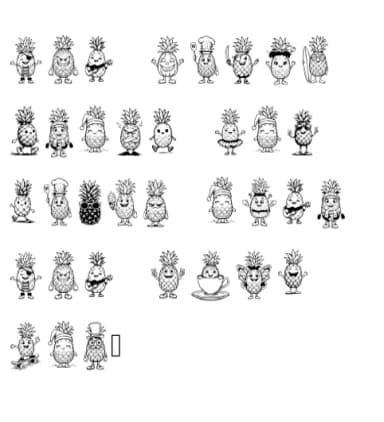
Pineapple Joy by Happy Bamboo is a hand-drawn dingbat font that injects tropical character into any layout. The collection features 26 individual pineapple illustrations, each with distinct personality. Some lean toward playful cartoon expressions while others show more botanical detail, giving you flexibility depending on the mood you're after.
These icons work particularly well for tropical-themed wedding invitation suites where you need subtle visual interest without overwhelming the text. They're equally at home on Etsy product labels for handmade goods, DIY craft packaging and signage, and social media graphics that need instant warmth. Layer them alongside clean typography for visual breathing room, or use them as standalone embellishments to break up longer passages of body text. The hand-drawn style keeps everything feeling approachable rather than overly designed, which matters when you want authentic charm to come through.
Think about beach resort menus, boutique packaging for organic or artisanal products, coloring books with a tropical theme, or even personal stationery that makes a quiet visual statement. These pineapple doodles add personality to a project without demanding excessive visual weight. The friendly aesthetic pairs well with both modern minimalist layouts and more playful, eclectic compositions. Get Pineapple Joy on Creative Fabrica to add a tropical spark to your projects.
Pineapple Joy Font is a versatile dingbats font that works for both headings and body text. Pair it with a contrasting sans-serif or serif font to add visual interest and a clear distinction between titles and body copy.
Pineapple Joy Font